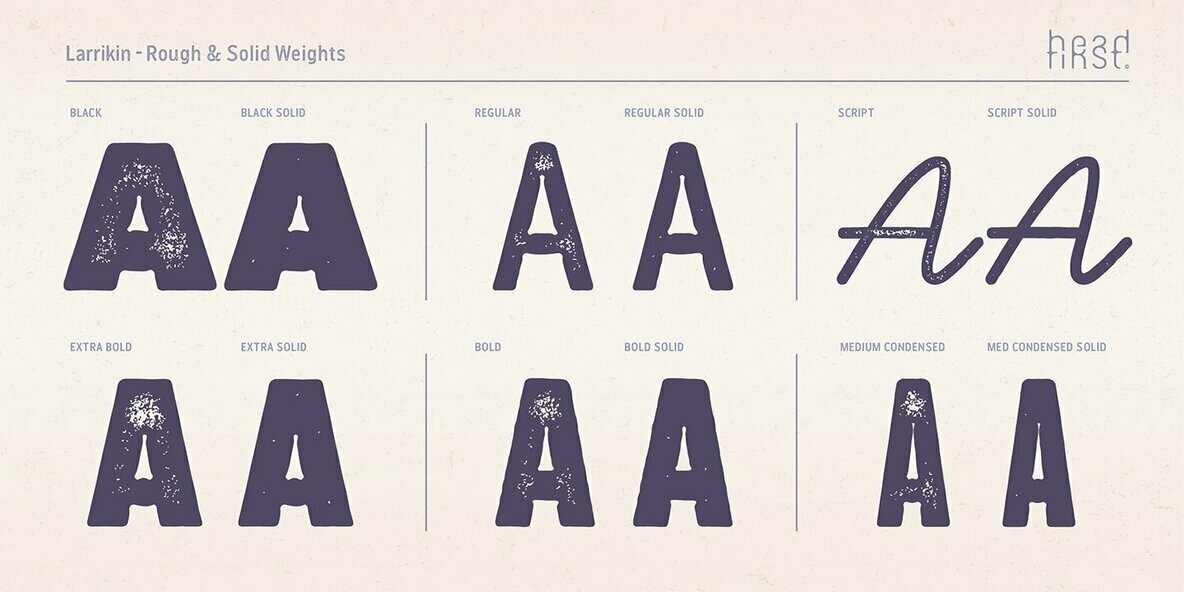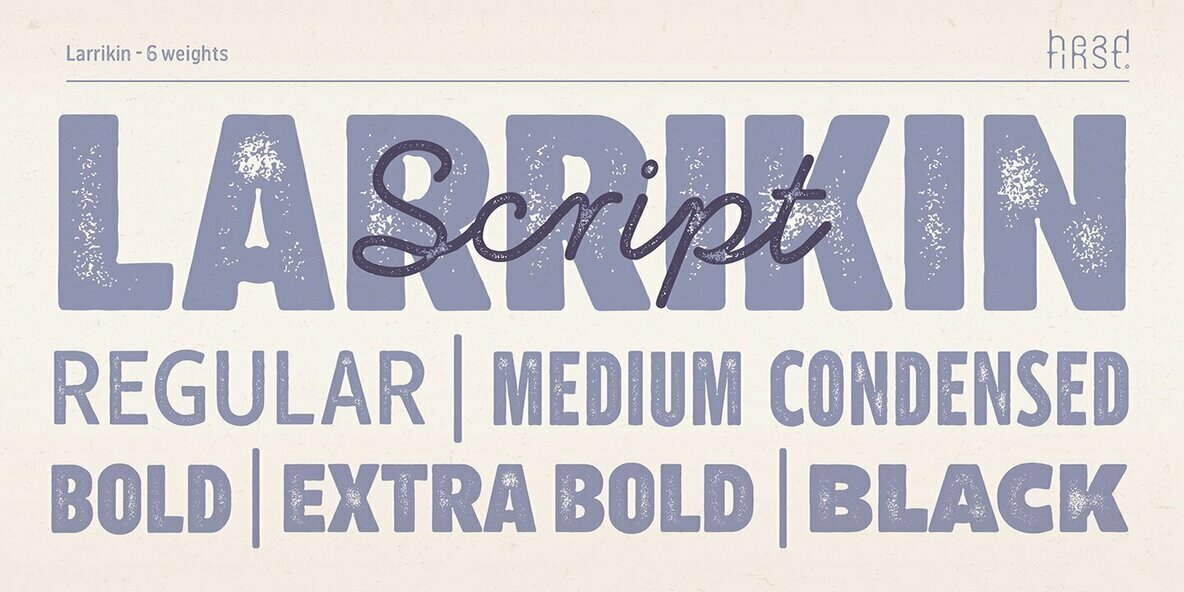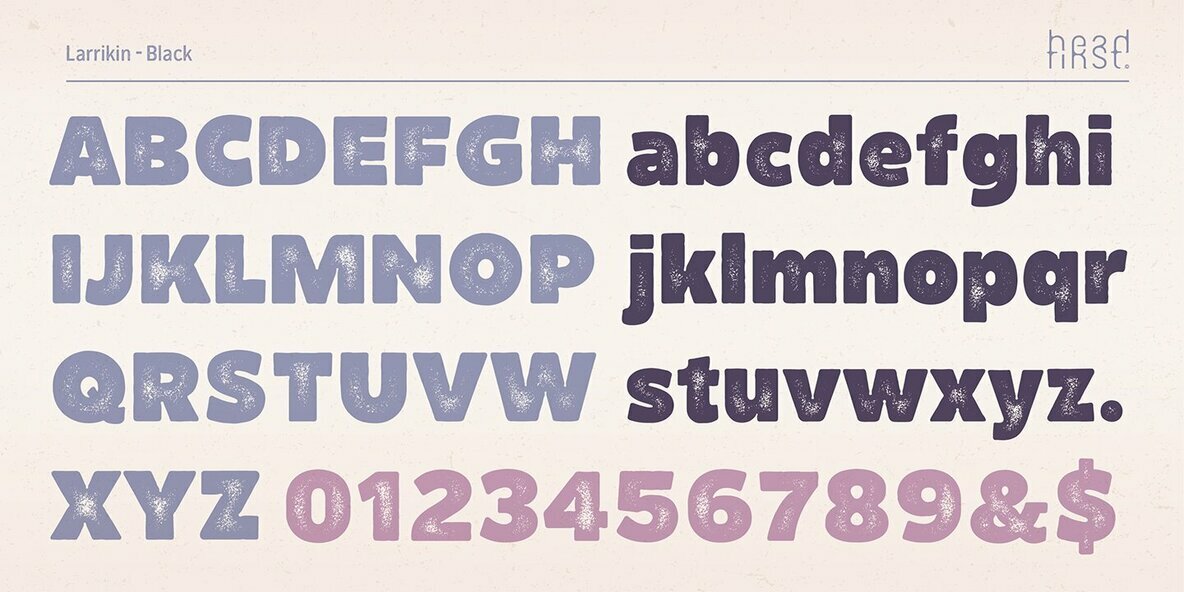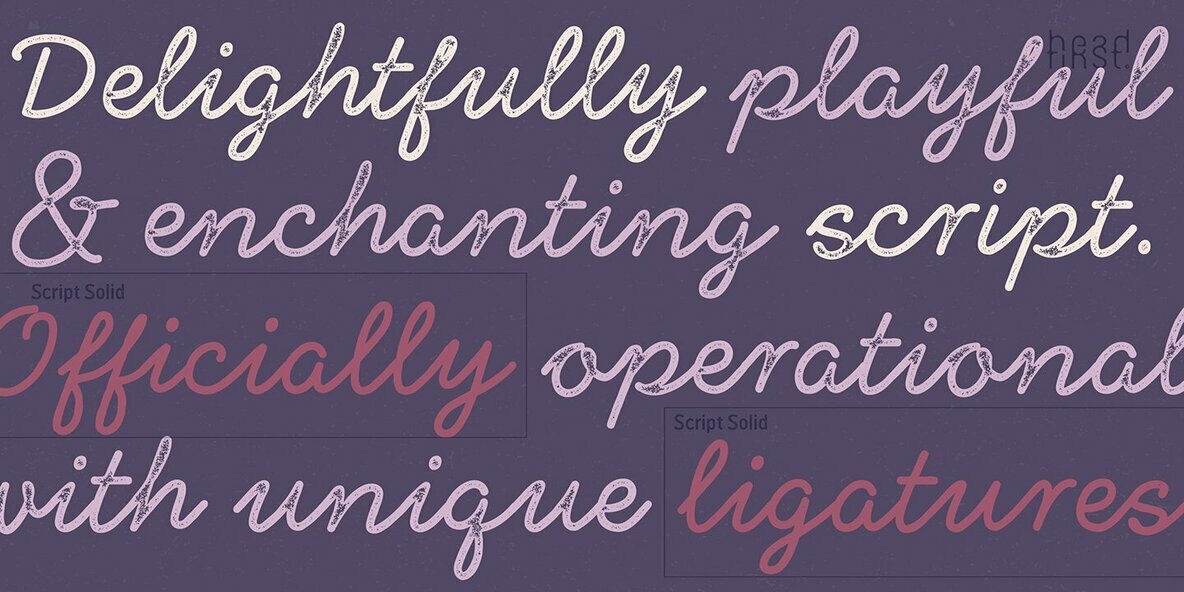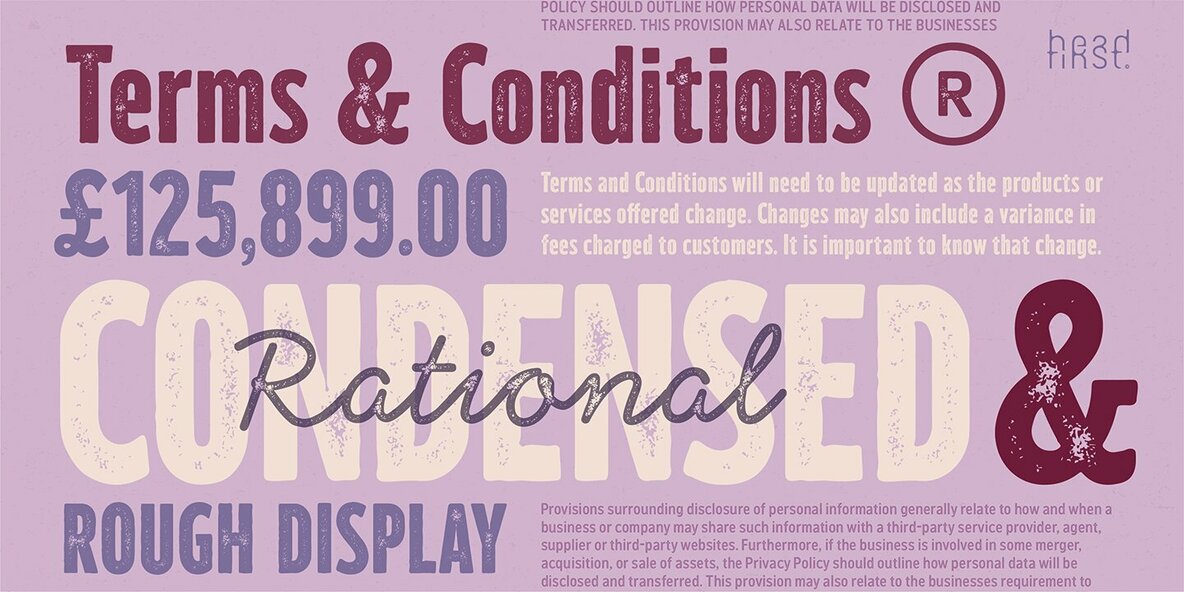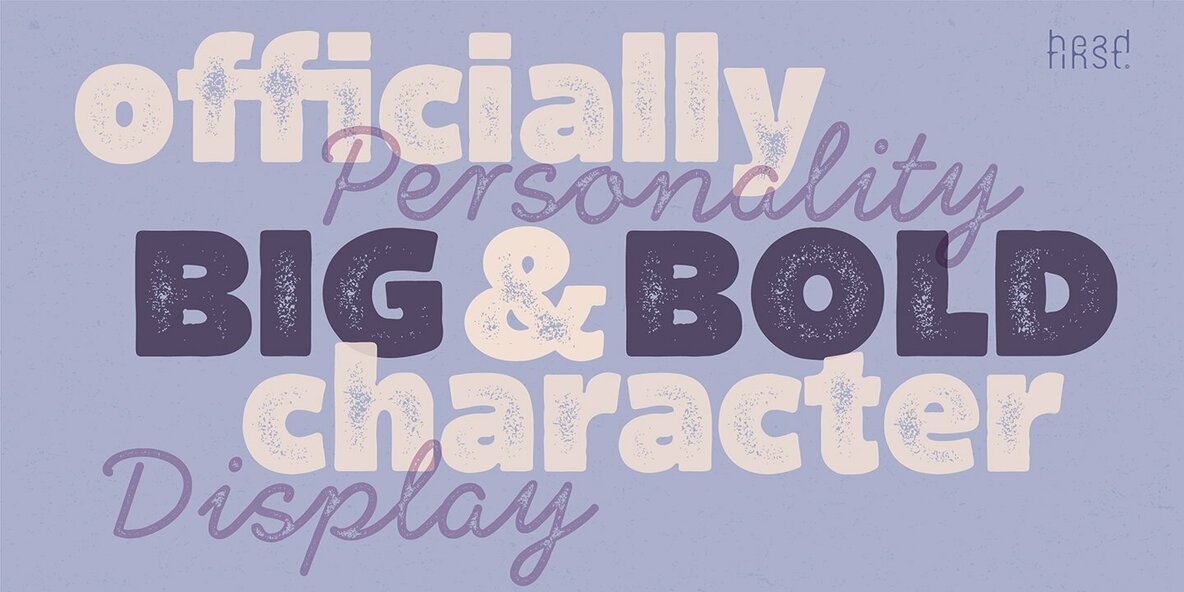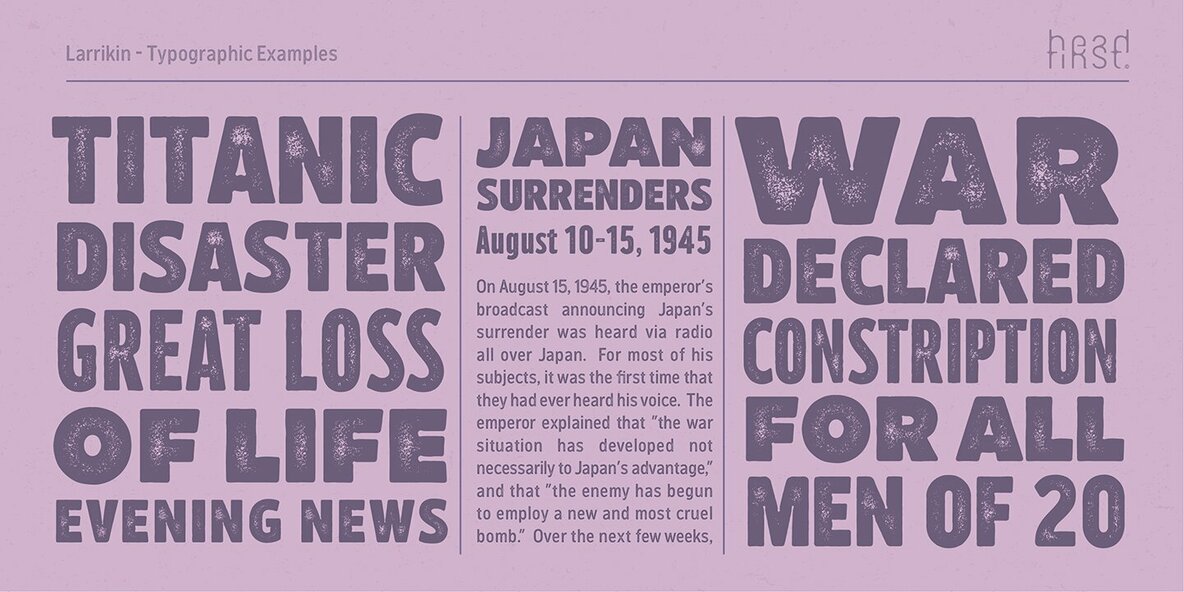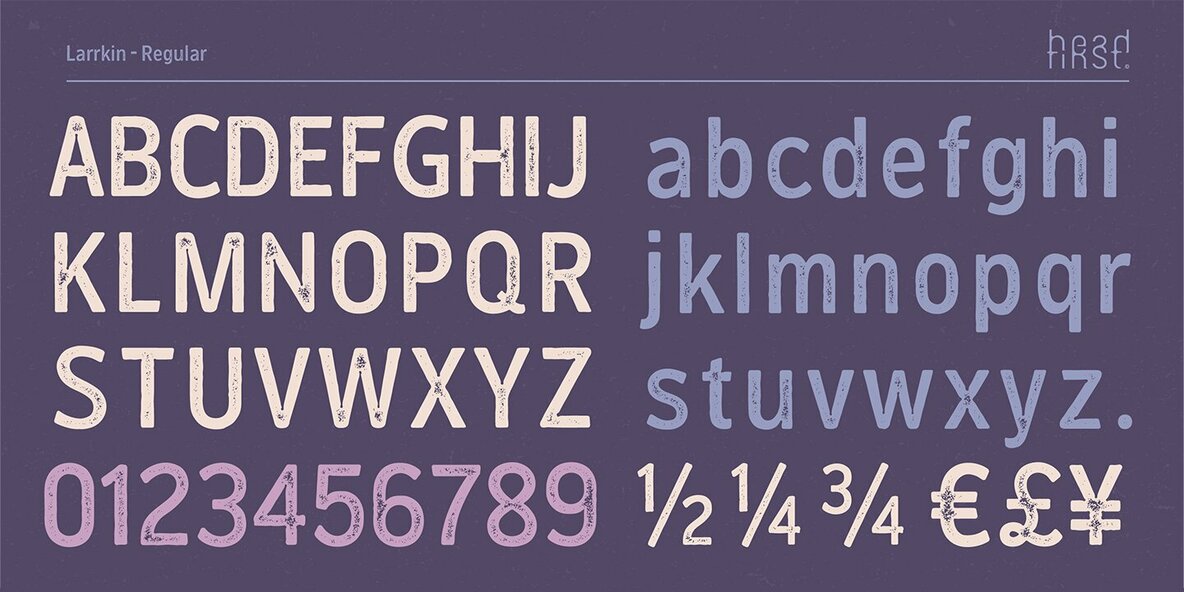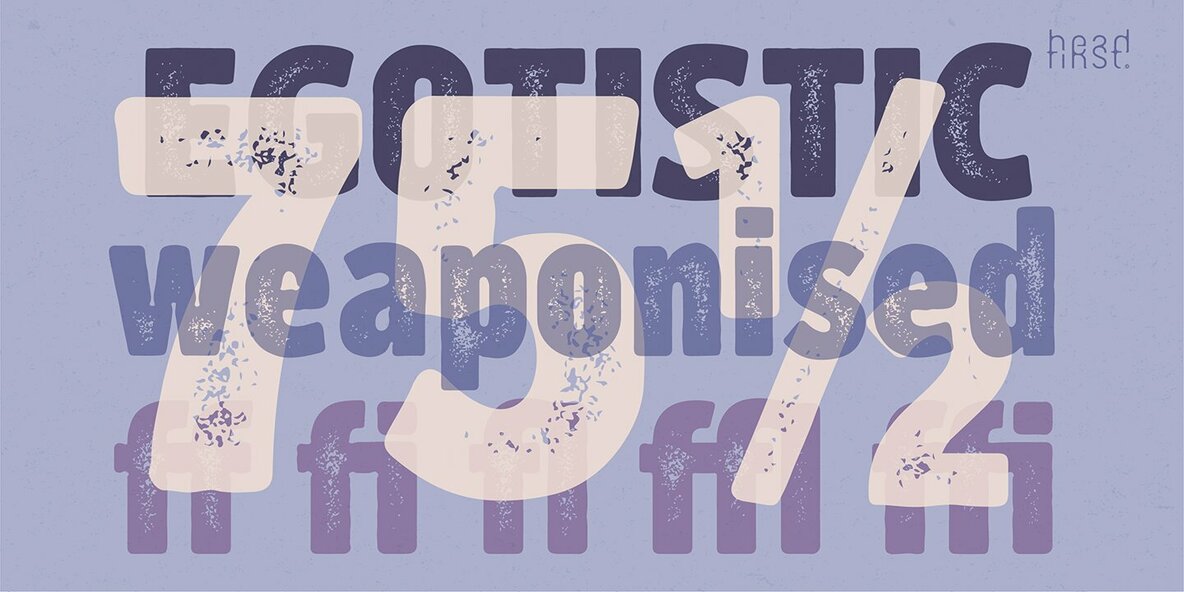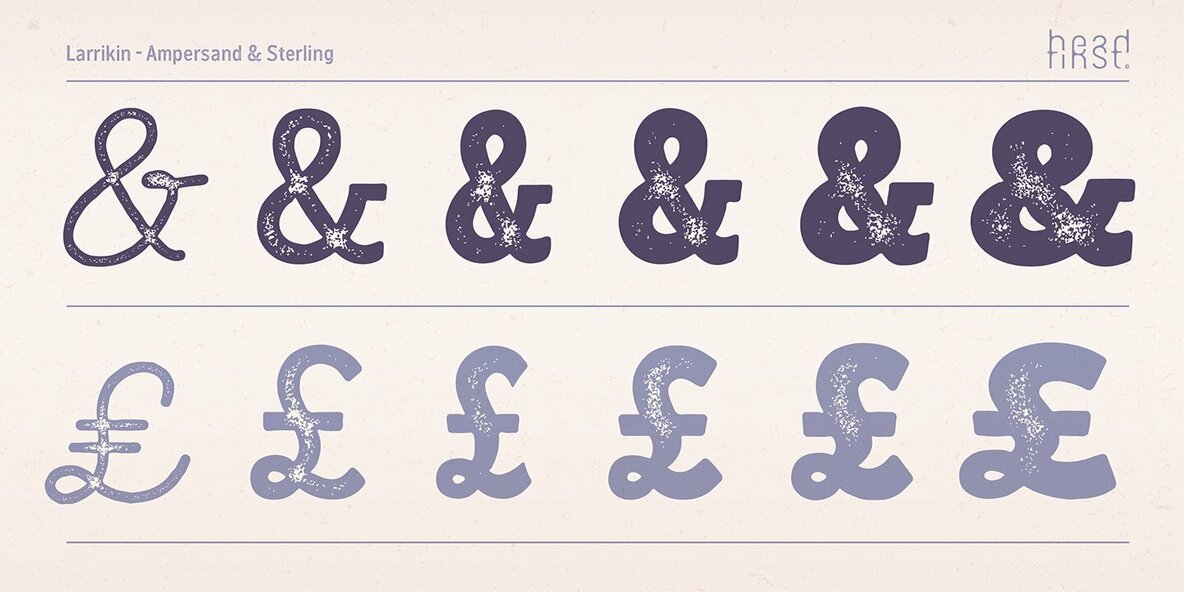
Larrikin Font
Larrikin is a san serif display typeface that is based on hand carved wood-cut letterpress characters.
The typeface is available in 6 weights in both rough & solid variations.